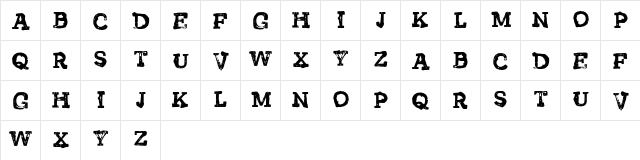
Vtks Sportage Regular
Design Context for Vtks Sportage Typeface
Vtks Sportage brings high-energy athletic personality to the page — its confident, muscular forms are built for impact.
A natural choice for gym brands, fantasy sports, jersey lettering, and action-driven headlines.
Pro Tip: Use Vtks Sportage in all-caps headlines where its athletic energy can fully express itself. Pair with a solid, simple sans for supporting text.